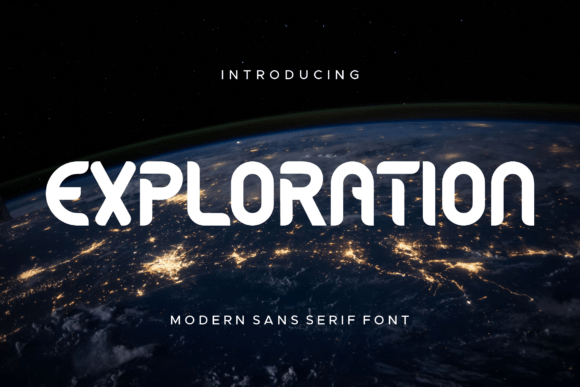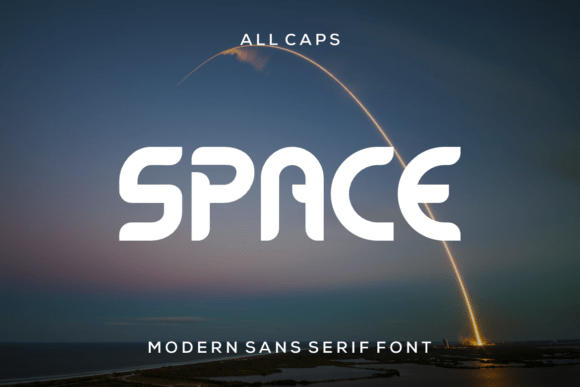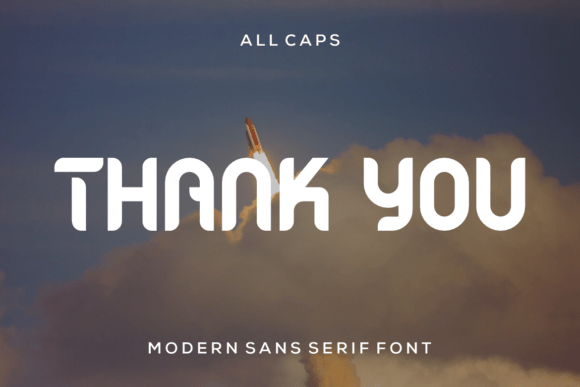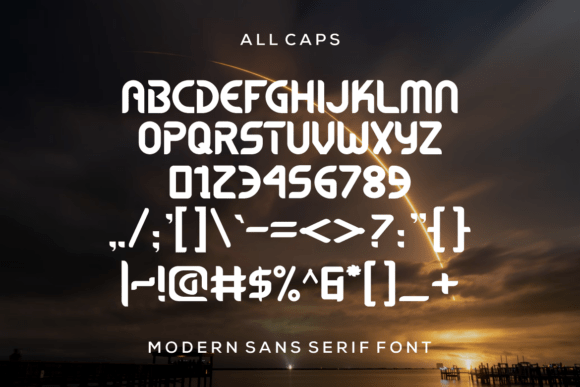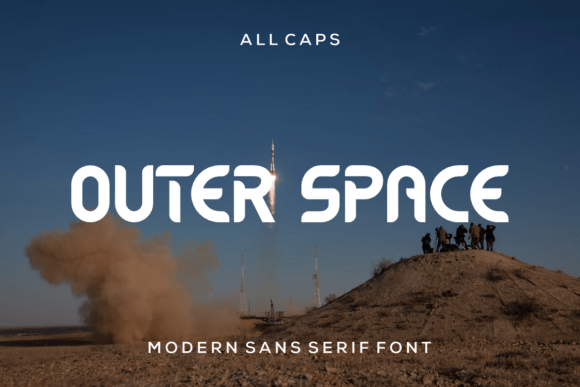
The Moment That Sparked a New Design Era
Remember that moment when a font choice just clicked, and your entire design concept came to life? For designers, it’s a rush of excitement that can make all the difference between a good design and a great one. It’s in those moments that we crave a font that can elevate our message, capture attention, and leave a lasting impression.
Enter the Exploration Font, a modern sans serif typeface designed to add a dynamic touch to your designs. With its playful flair and versatility, this font is perfect for attention-grabbing headlines, logos, and a wide range of design projects. Whether you’re working on a digital campaign or a print publication, the Exploration Font is an invaluable asset that will take your designs to the next level.
Key Features of Exploration Font
- Font Family: Exploration Font is a sans-serif typeface designed for optimal readability and versatility. It comes in multiple weights, ranging from Light to Bold.
- Font Size: Each weight of the font has been carefully crafted to be legible at font sizes ranging from 8 to 24 points, making it suitable for a wide range of applications.
- Resolution: Designed to be highly scalable, Exploration Font is optimized for resolutions up to 300 DPI, ensuring crisp and clear text display on high-resolution screens.
- Unique Characteristics: The font’s unique design features a subtle flair at the ends of strokes, giving it a distinctive and modern look. This flair also helps to improve readability, especially at smaller font sizes.
- Character Set: The font includes a comprehensive character set, covering Latin, Cyrillic, and Greek alphabets, as well as a range of punctuation and symbol glyphs.
Exploration Font Review
Overall, I’m quite impressed with the Exploration Font – it has some fantastic features that make it a great choice for designers looking for a unique and adventurous feel.
- ✨ Unique character set – the font has a great selection of alternate characters and ligatures that can add a lot of personality to your designs.
- ✨ Highly customizable – the font has a wide range of OpenType features that can be used to create a wide range of effects, from subtle to dramatic.
- ✨ Great for storytelling – the font’s adventurous feel makes it perfect for designs that need to convey a sense of exploration and discovery.
- ⚠️ Not ideal for body text – while the font is great for headlines and titles, it may be a bit too ornate for large blocks of body text.
- ⚠️ Limited language support – the font may not support all languages, which could be a limitation for designers working on international projects.
Overall, I think the Exploration Font is a great choice for designers who want to add a bit of adventure and personality to their designs. While it may not be perfect for all projects, it’s definitely worth considering for the right type of design.
The Exploration Font is perfect for:
- Creating a sense of adventure and exploration in travel brochures and marketing materials.
- Designing educational materials, such as textbooks and workbooks.
- Developing a brand identity for companies that specialize in exploration and discovery.
Some tips for getting the most out of the Exploration Font include:
- Using it in combination with bold, colorful graphics and imagery.
Compared to Exploration Font, Arial is more straightforward and lacks the unique flair of Exploration Font. However, Arial is a more versatile font that works well in a variety of design contexts.
The recommended font size for the Exploration Font is between 12px and 24px, depending on the context and design requirements. For body text, we recommend using 14px or 16px, while headings can be set to 18px or 20px for maximum readability.